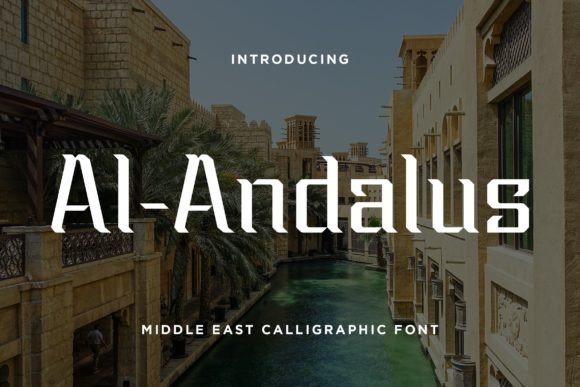
Behold, Al Andalus Font – A Typographic Masterpiece Rooted in Middle Eastern Heritage
In a world saturated with digital monotony, Al Andalus Font emerges as a breath of fresh air, an artistic triumph that pays homage to the rich calligraphic traditions of the Middle East. This exquisite font family, meticulously crafted by konstantinestudio, is not just a collection of letters; it's a captivating narrative etched in pixels.
With its intricate strokes and flowing lines, Al Andalus Font embodies the essence of ancient manuscripts, where words were not merely symbols but works of art. Each character carries the weight of history, whispering tales of a bygone era when calligraphy was a sacred art form.
Immerse yourself in the beauty of Al Andalus Font, and let its elegant curves ignite your imagination. Picture your designs adorned with this typographic treasure, exuding an aura of timeless elegance. Whether it's a captivating logo, a striking poster, or the title of a book yearning to transport readers to distant lands, Al Andalus Font is your artistic compass.
Unleash the Middle Eastern mystique in your creative endeavors with Al Andalus Font. As the perfect font for conveying the essence of Middle Eastern culture, it breathes life into your designs, creating a tangible connection to the region's rich heritage.
Join the ranks of discerning designers who recognize the transformative power of Al Andalus Font. Elevate your work to new heights of sophistication, leaving an indelible mark on your audience.